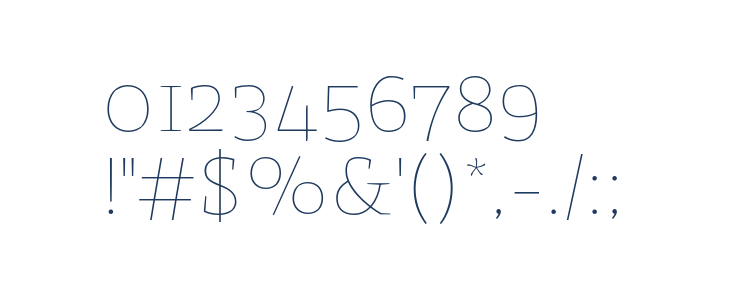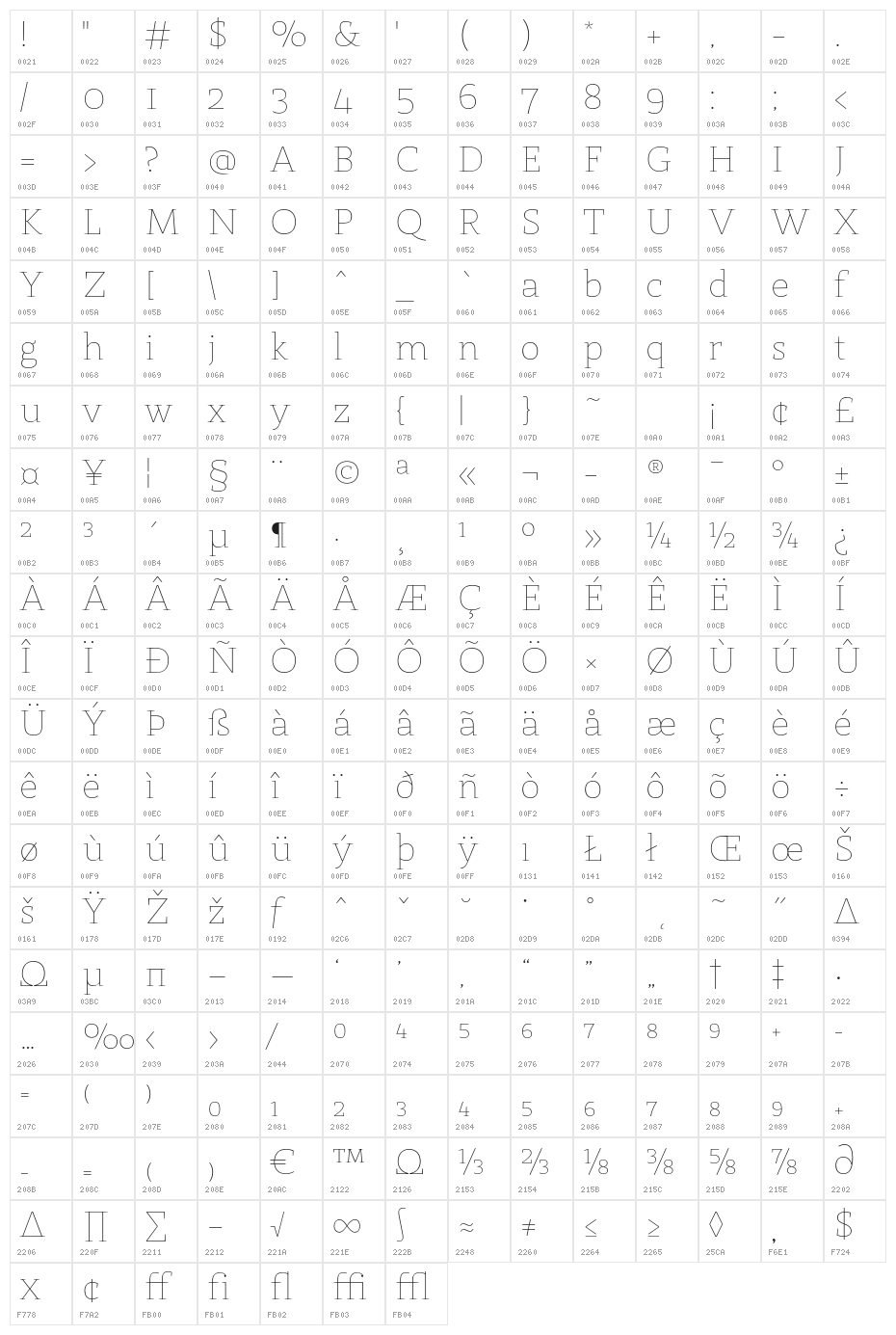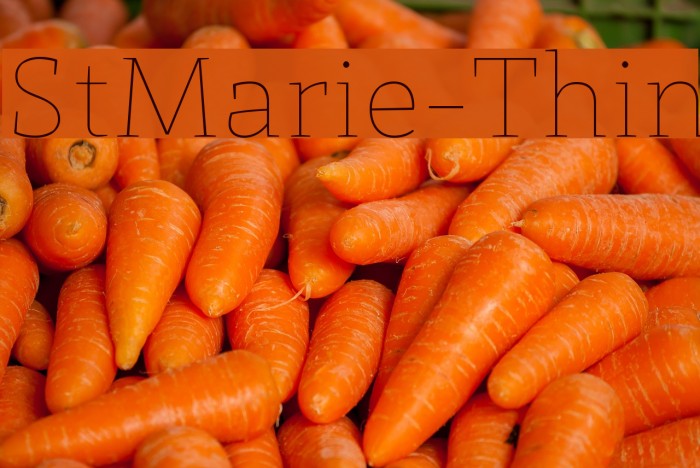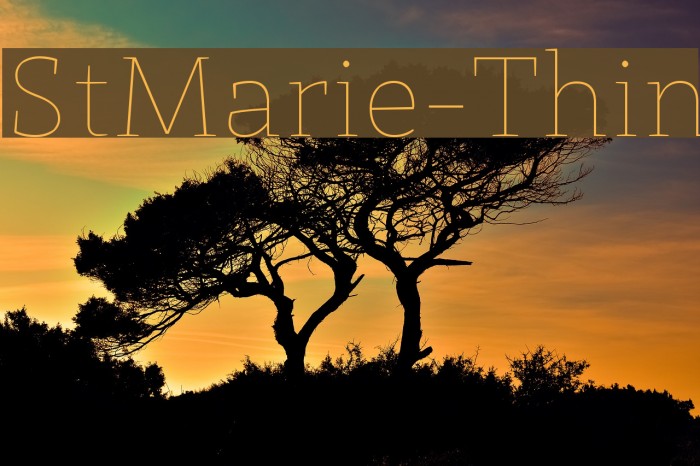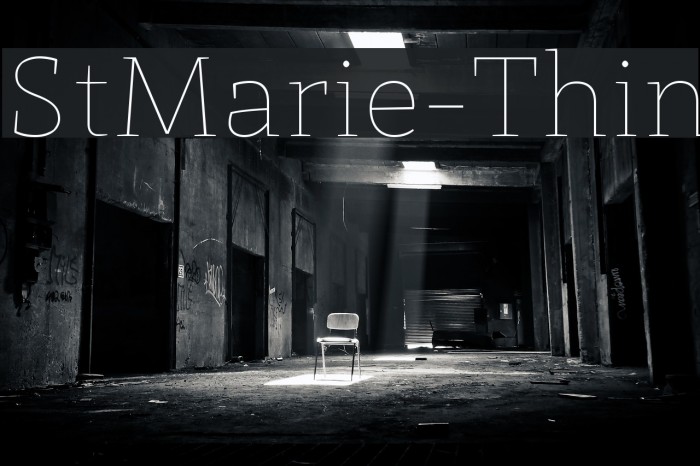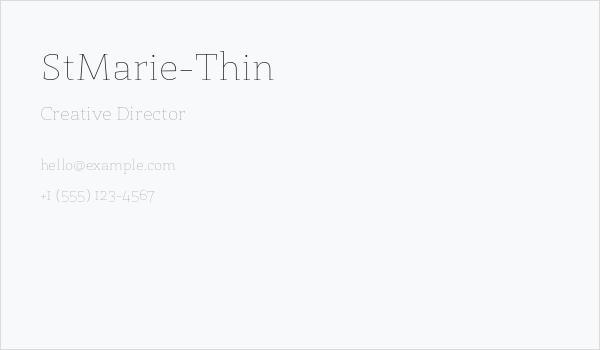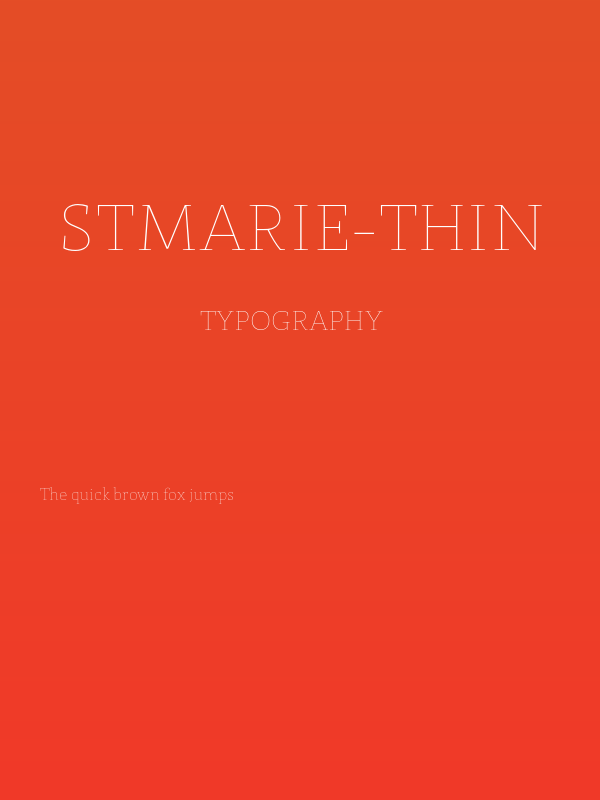
StMarie-Thin Font
StMarie-Thin Description
This font exhibits a refined and elegant design, characterized by its thin and delicate strokes. The letters are crafted with a modern serif style, offering a sophisticated and clean appearance. The uppercase letters are tall and slightly narrow, while the lowercase letters maintain a consistent height, contributing to a harmonious look. The numerals are distinct and align well with the overall aesthetic, providing clarity and readability. Special characters are thoughtfully designed, maintaining the font's graceful and minimalist approach. This font is ideal for projects that require a touch of elegance and modernity.